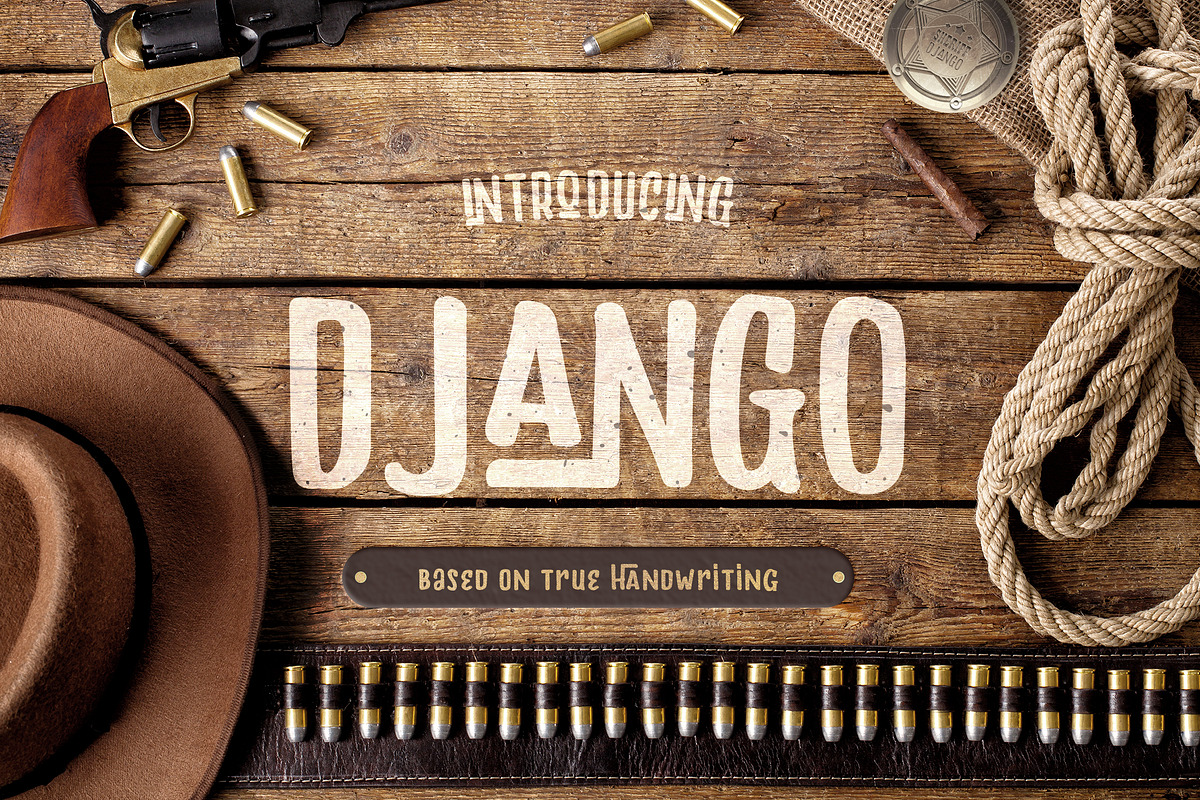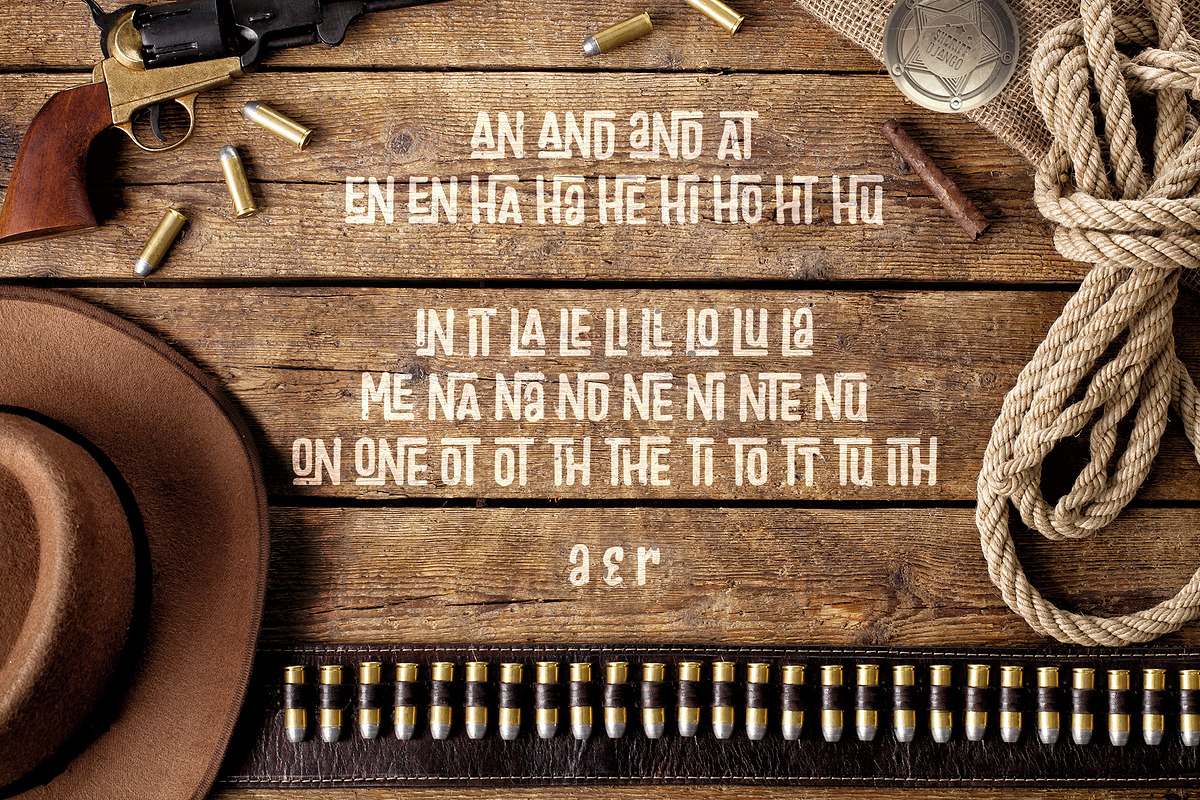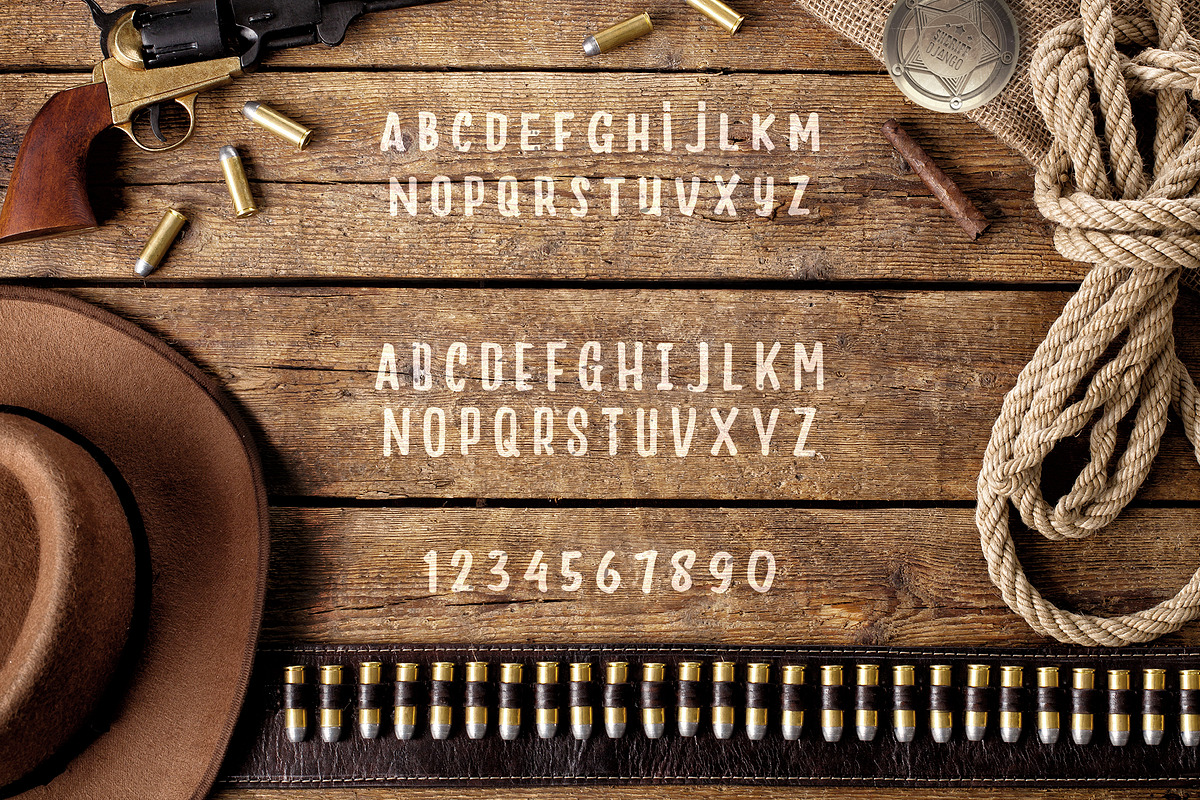
Django
Django by Font Bundles is a font selected for branding, posters, packaging, typography.
- If it's normal characters were not enough, this font comes with some super cool alternatives to spice up your designs.
Why Django is worth a look
Django by Font Bundles fits naturally into Branding, posters, packaging, typography.